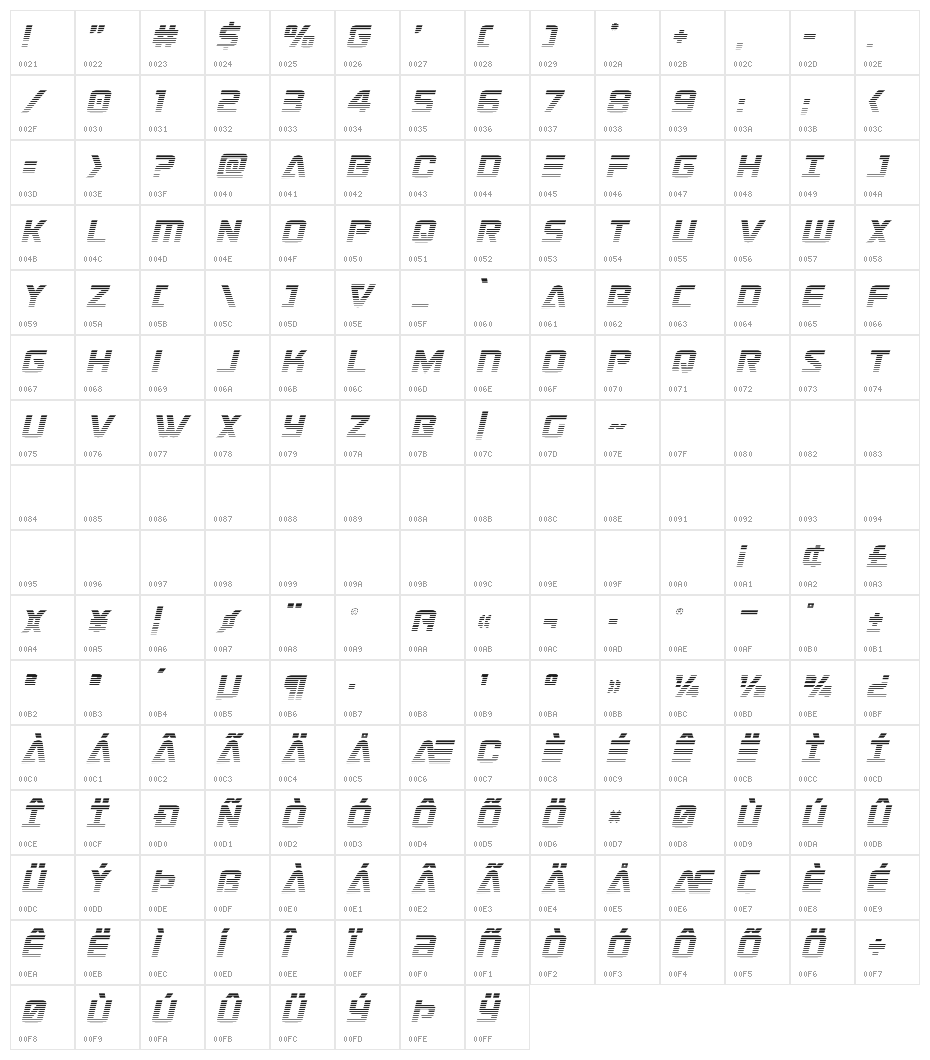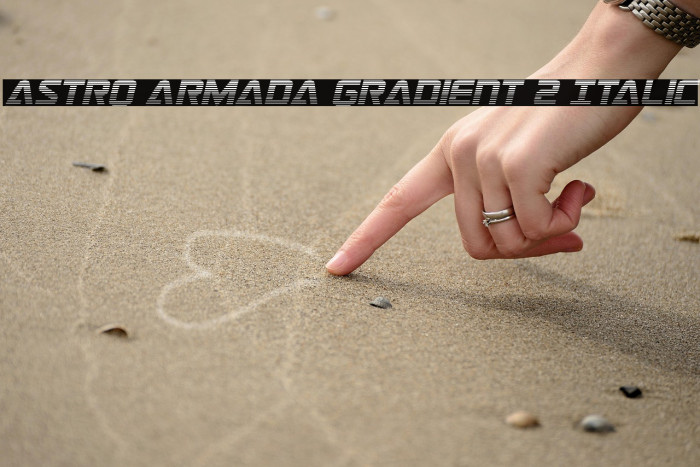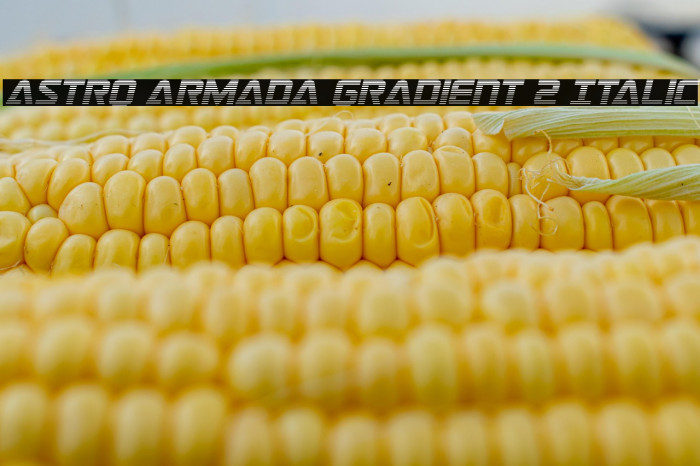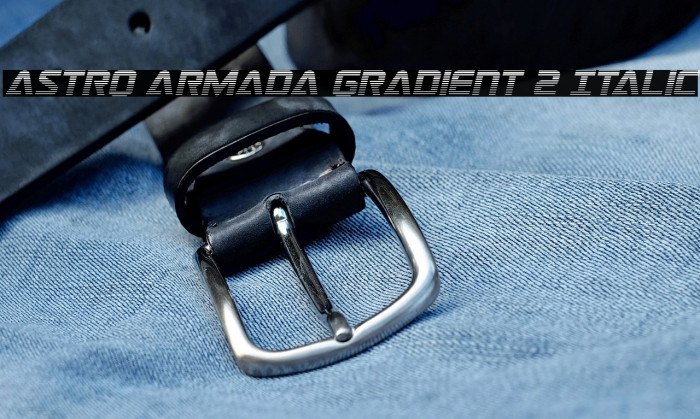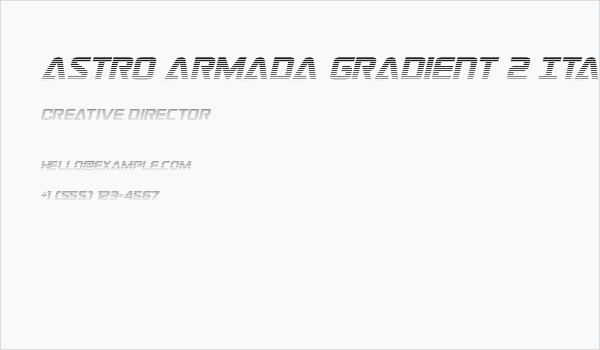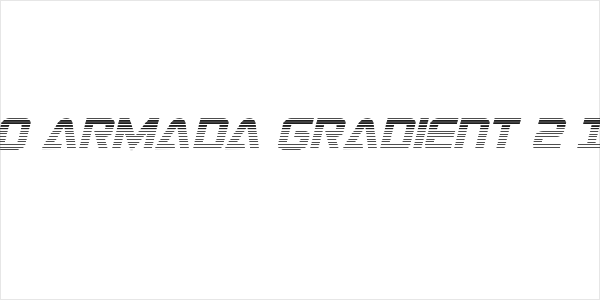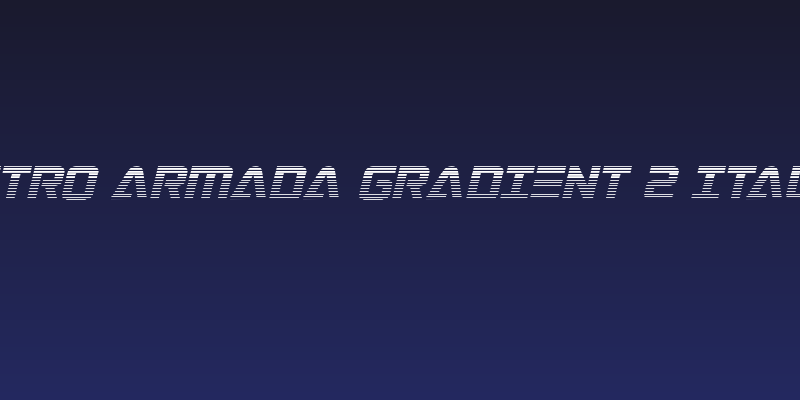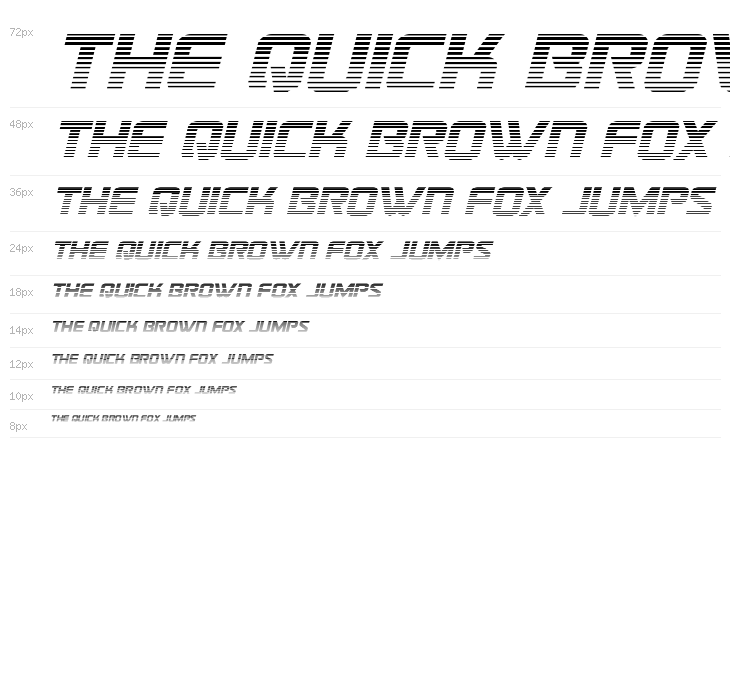
Astro Armada Gradient 2 Italic Font
Astro Armada Gradient 2 Italic Description
This font features a futuristic and dynamic design with a distinct italic slant. Each character is composed of parallel horizontal lines, creating a gradient effect that suggests movement and speed. The uppercase and lowercase letters maintain a consistent style, enhancing the font's cohesive appearance. The numbers and special characters are designed with the same linear pattern, ensuring uniformity across all glyphs. This font's unique aesthetic makes it suitable for projects that require a modern and energetic feel.
| Proposed Projects | Ideal for sci-fi themed posters, video game titles, technology branding, and futuristic event flyers. |